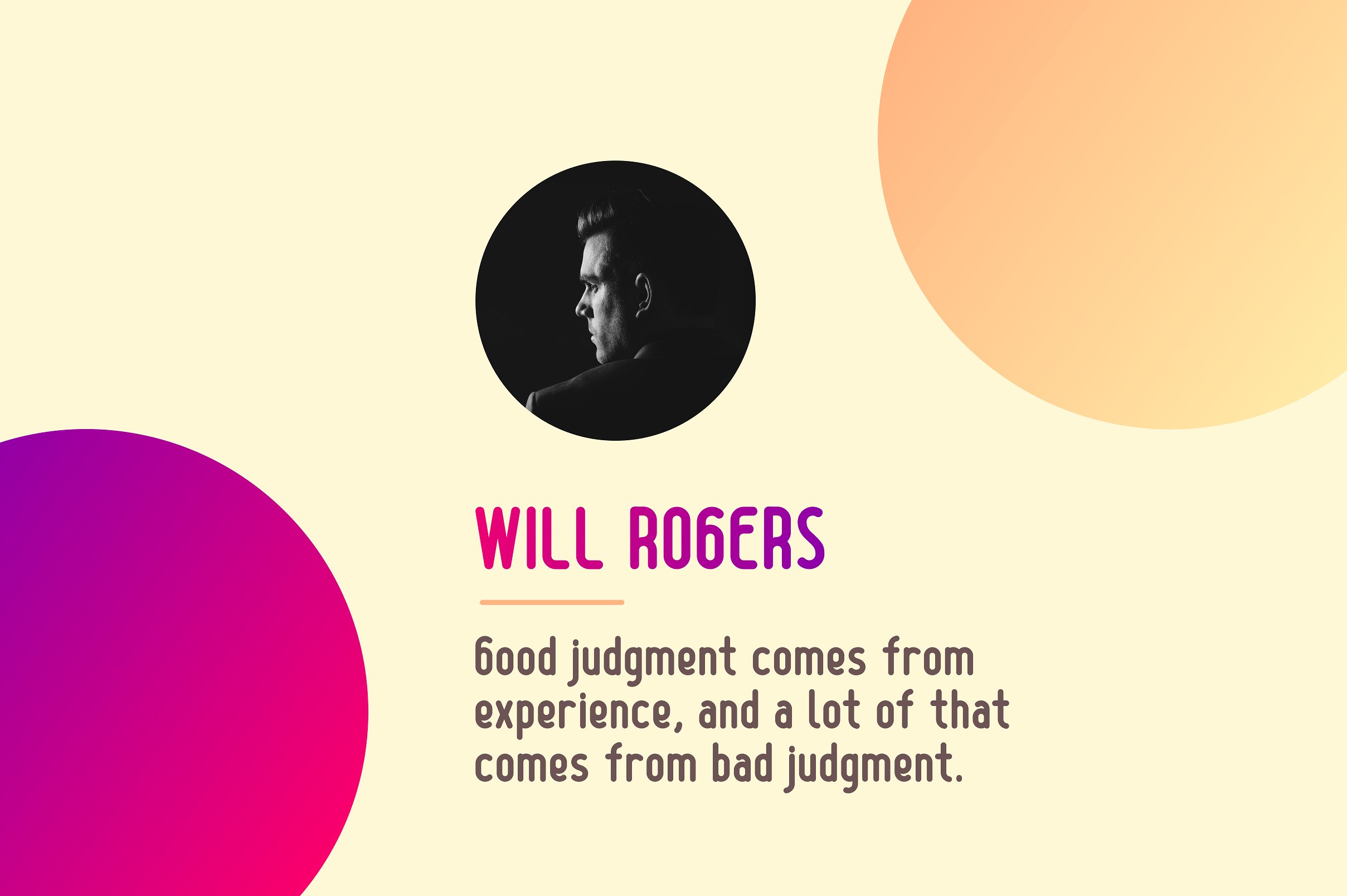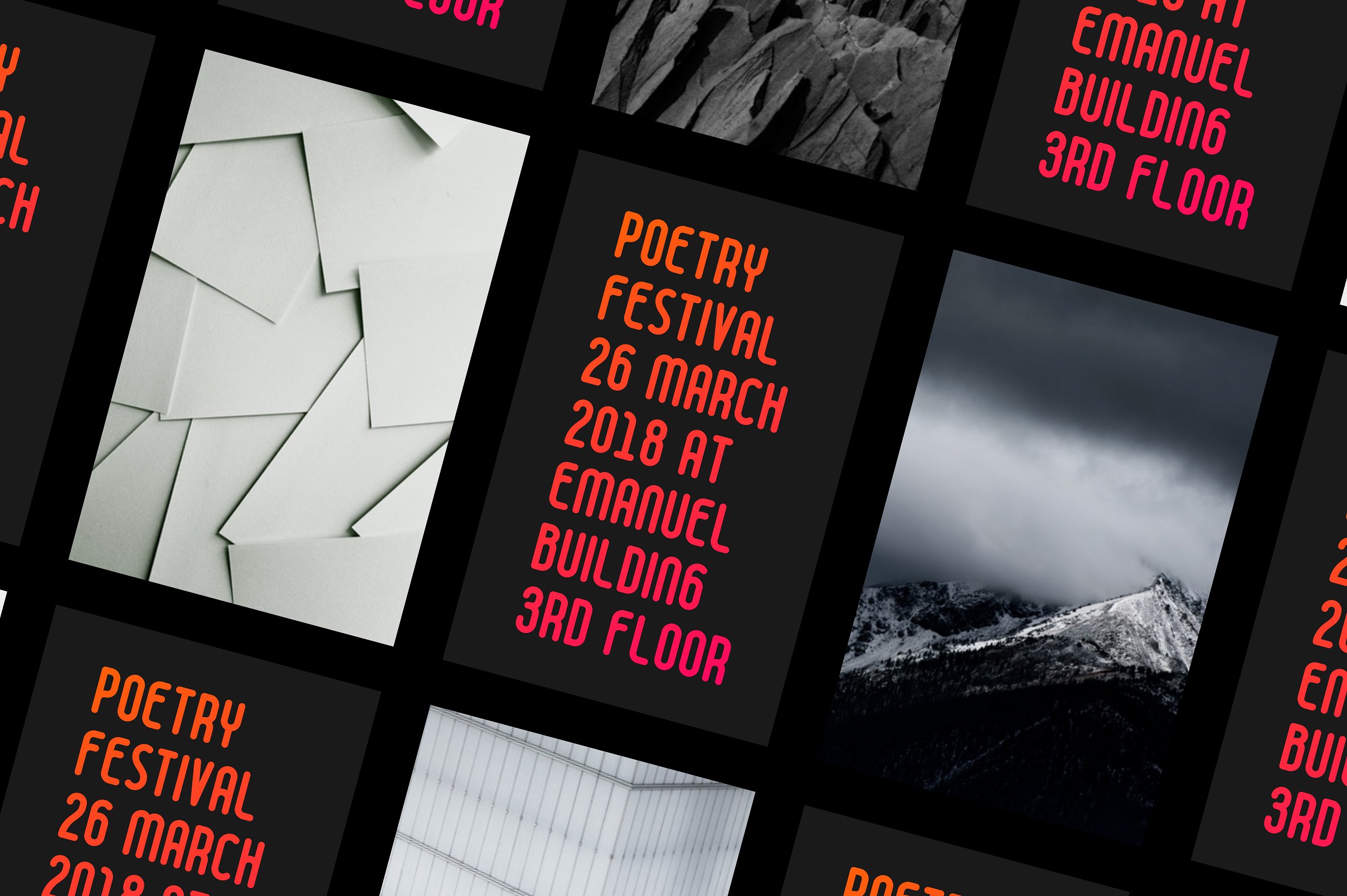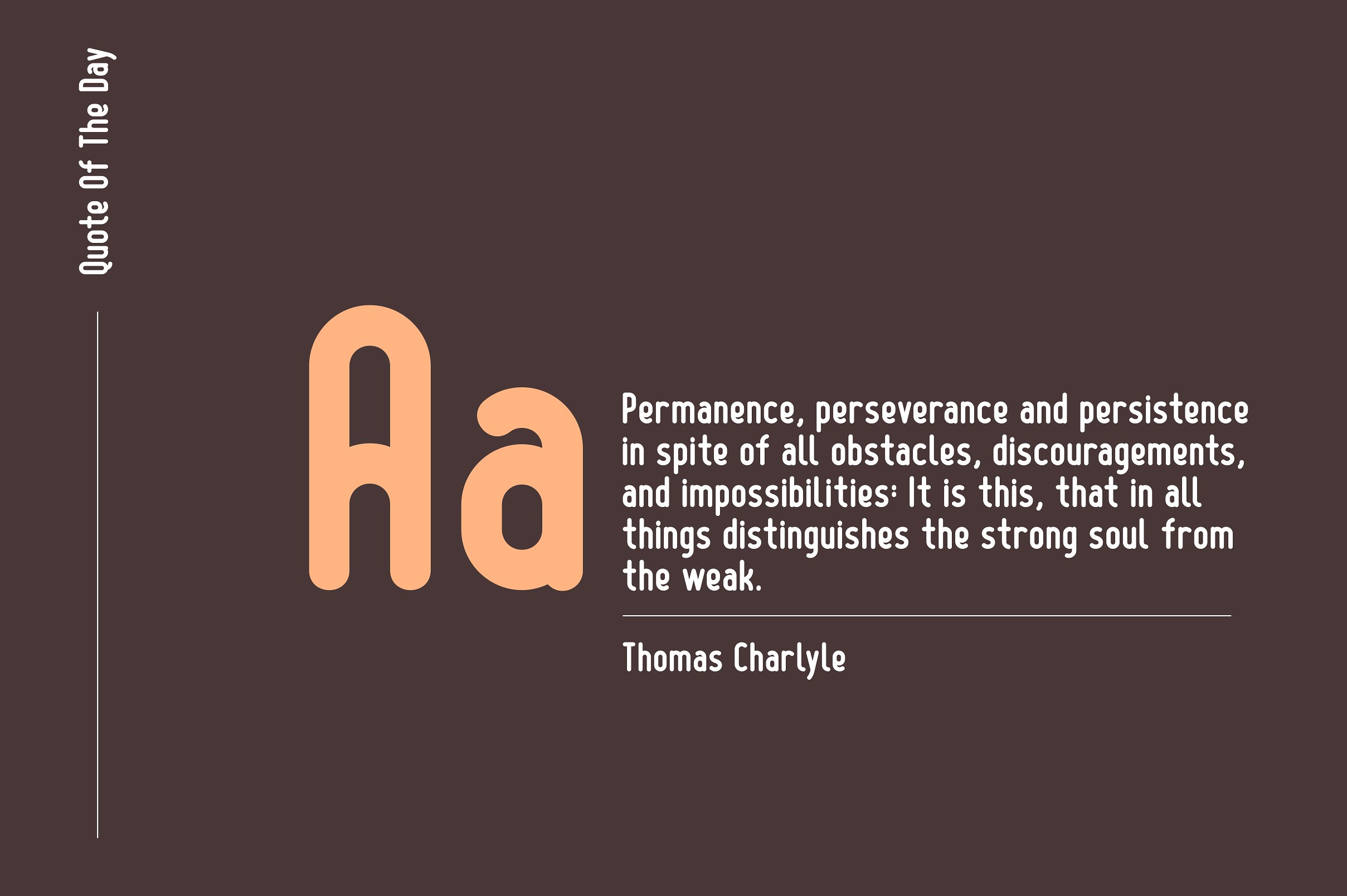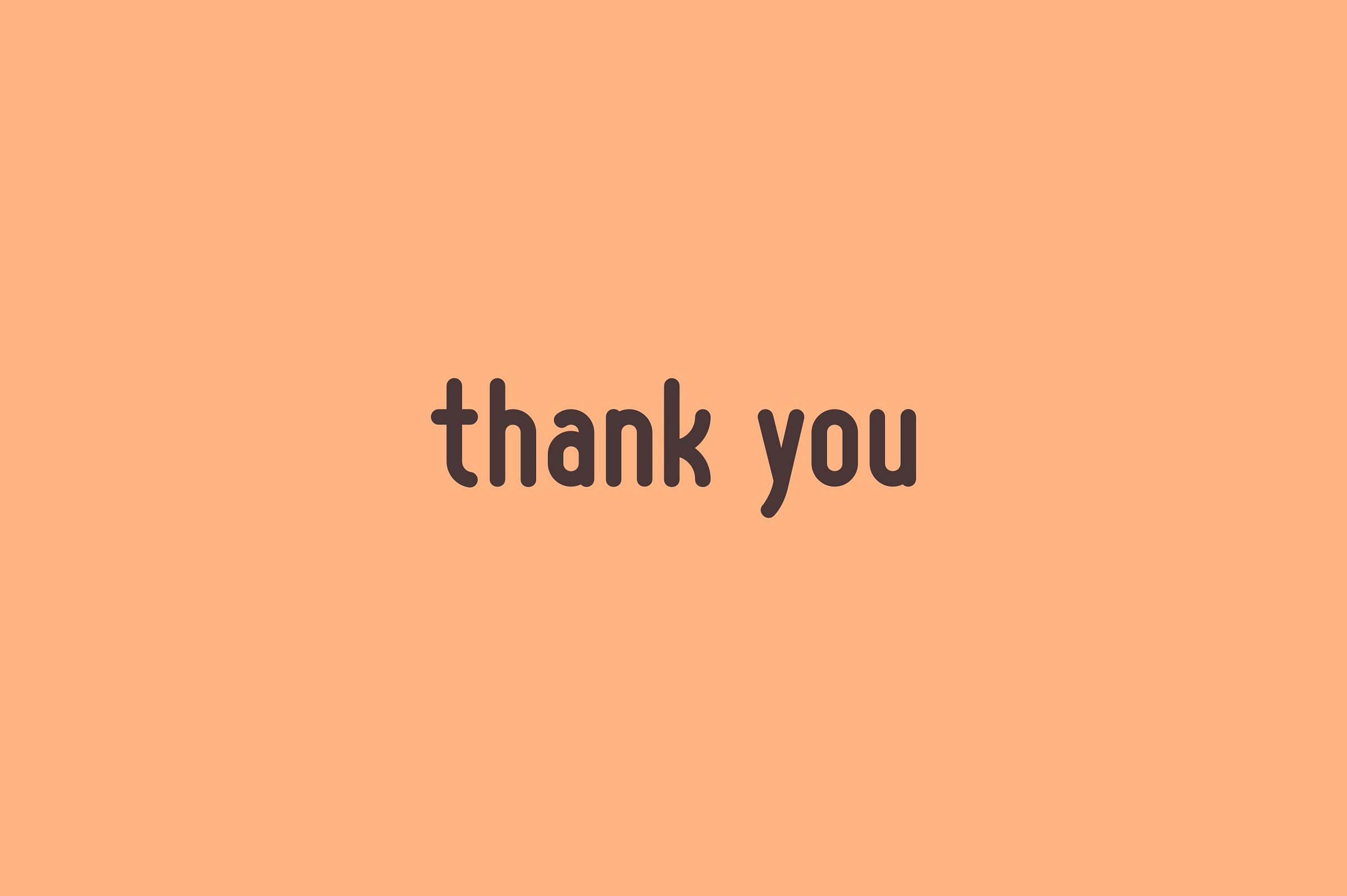
Introducing Bold Year Font: The Ultimate Choice for Creative Projects
In the world of typography, a good font can make all the difference in the success of a creative project. Whether you’re a designer, crafty enthusiast, or entrepreneur, finding the right font can be a daunting task. That’s where Bold Year Font comes in – a bold condensed font that suits a wide range of creative project types. In this article, we’ll explore the features and benefits of Bold Year Font, and why it’s a great addition to your typography arsenal.
What is Bold Year Font?
Bold Year Font is a bold condensed font designed to make a statement. Its sleek and modern design makes it perfect for a variety of creative projects, from digital designs to print materials. The font’s condensed style allows for easy reading and high legibility, even in small sizes. Whether you’re creating a logo, brochure, or social media graphic, Bold Year Font is a versatile choice that can help you achieve your design goals.
Key Features of Bold Year Font
- Bold and Condensed Design: Bold Year Font features a bold and condensed design that makes it perfect for headlines, titles, and short paragraphs of text.
- High Legibility: The font’s clear and simple design ensures high legibility, even in small sizes and at a distance.
- Digital and Print Friendly: Bold Year Font looks great in both digital and print formats, making it a versatile choice for a wide range of creative projects.
- Wide Range of Creative Applications: From logos and branding to brochures, posters, and social media graphics, Bold Year Font is suitable for a wide range of creative projects.
Benefits of Using Bold Year Font
So, why choose Bold Year Font for your creative projects? Here are just a few benefits of using this versatile font:
- Save Time: With Bold Year Font, you can create professional-looking designs in no time. Its bold and condensed design makes it easy to read and understand, saving you time and effort.
- Increase Readability: The font’s high legibility ensures that your message gets across clearly, even in small sizes and at a distance.
- Enhance Brand Identity: Bold Year Font can help you create a strong brand identity that stands out from the crowd. Its modern and sleek design makes it perfect for logos, branding, and marketing materials.
- Versatility: Whether you’re working on a digital project or a print project, Bold Year Font is a versatile choice that can adapt to any design style.
How to Use Bold Year Font in Your Creative Projects
Using Bold Year Font in your creative projects is easy. Here are a few tips to get you started:
- Pair it with Other Fonts: Bold Year Font works well with other fonts, especially those with a more minimalist design. Try pairing it with a sans-serif font for a modern look.
- Use it for Headlines and Titles: The font’s bold and condensed design makes it perfect for headlines and titles. Use it to grab attention and draw the reader in.
- Experiment with Colors: Bold Year Font looks great in a variety of colors. Experiment with different colors and gradients to find the perfect look for your design.
In conclusion, Bold Year Font is a versatile and modern font that’s perfect for a wide range of creative projects. Its bold and condensed design makes it easy to read and understand, while its high legibility ensures that your message gets across clearly. Whether you’re a designer, crafty enthusiast, or entrepreneur, Bold Year Font is a great addition to your typography arsenal. So why not give it a try and see how it can elevate your creative projects?
- Is Bold Year Font suitable for body text? While Bold Year Font is designed for headlines and titles, it can be used for body text in certain contexts. However, it’s recommended to use a font with a more traditional design for longer blocks of text.